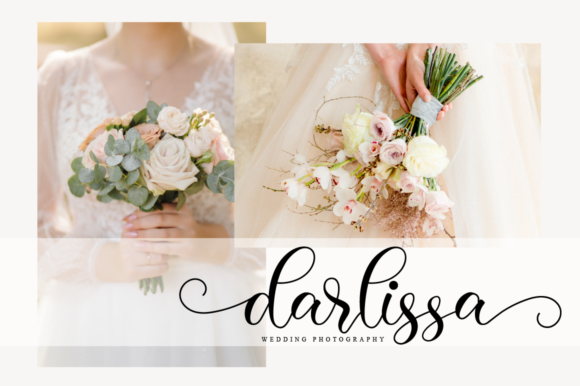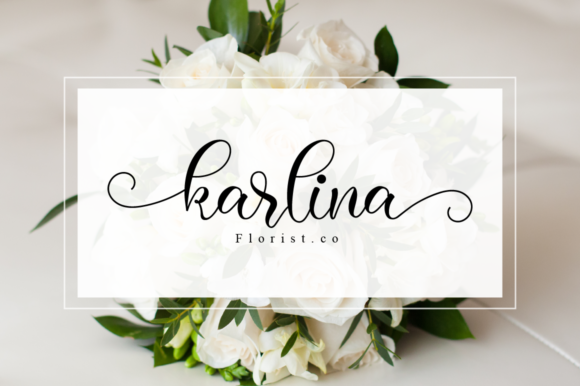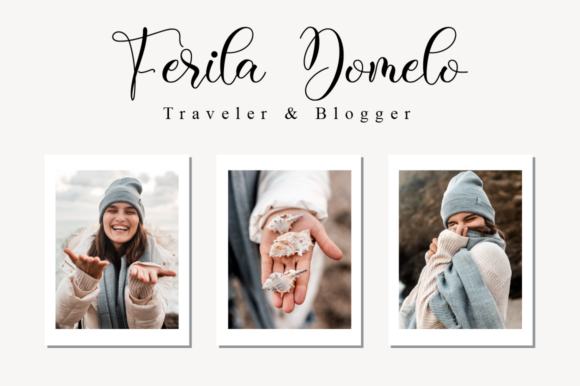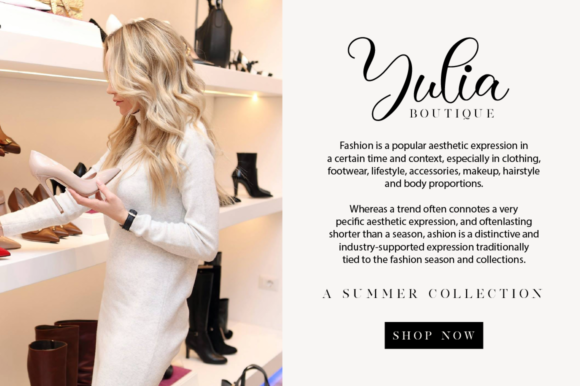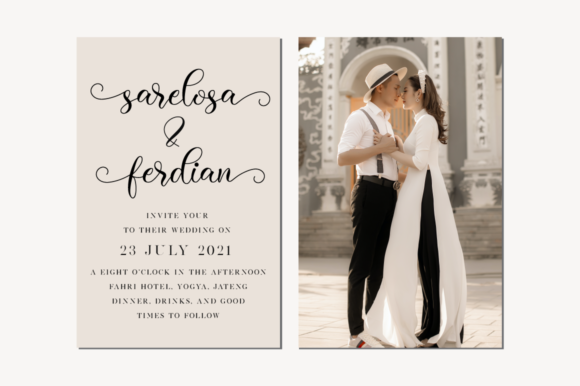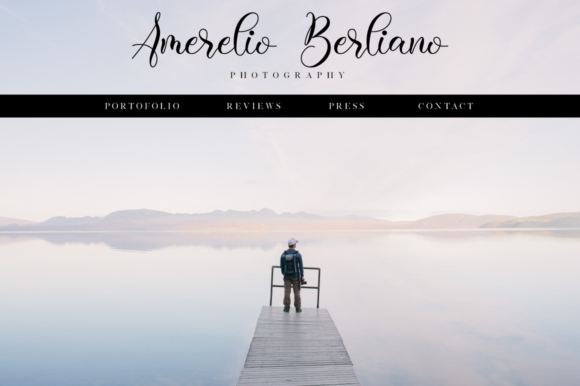
Introduction to Miralose Font
Have you ever stumbled upon the perfect design element that instantly elevates your creative project? For designers, finding that elusive gem can be a game-changer. It’s like stumbling upon a hidden treasure that adds a touch of magic to your work. This is exactly what the Miralose Font promises to deliver – a high-quality, versatile script font that’s perfect for adding a romantic feel to your next project.
With its wide range of applications, from greeting cards to headlines, the Miralose Font is an invaluable design resource that’s sure to impress. Whether you’re working on a personal project or a commercial one, this enchanting font is guaranteed to bring a touch of elegance and sophistication to your work. And the best part? It’s available for a free download, making it an accessible design tool for creatives of all levels.
But what truly sets the Miralose Font apart is its transparent background, allowing you to easily access all the beautiful glyphs and swashes. With PUA encoding, you can unlock the full potential of this design gem and create stunning visuals that are sure to captivate your audience.
Key Features of Miralose Font
- Includes a wide range of characters, including uppercase and lowercase letters, numbers, and punctuation
- Features a unique, modern design with clean lines and minimalist aesthetic
Honest Review: Miralose Font
I recently had the chance to work with the Miralose Font, a popular design resource that has been making waves in the creative community. As a designer, I was excited to see how this high-quality font would perform in my latest project.
One of the things that stood out to me was the font’s versatility. With its sleek and modern design, it’s perfect for a wide range of creative projects, from logos and branding to digital displays and print materials. The transparent background feature also made it easy to customize and integrate into my design.
- ✨ Versatile and easy to customize
However, there were a few limitations that I encountered:
Overall, I was impressed with the Miralose Font and would definitely consider using it in future projects. While it may not be perfect, its strengths outweigh its limitations, making it a valuable addition to any designer’s toolkit.
Tips for Getting the Most Out of Miralose Font
Use the Miralose Font in conjunction with a transparent background to create a sleek and modern design element. Experiment with different font sizes and styles to add visual interest to your design. You can also use the font in combination with other design elements to create a unique and eye-catching design.
The Miralose Font is perfect for creative projects such as graphic design, digital art, and typography. It’s also great for use in presentations, documents, and websites. The font’s high-quality design and transparent background make it an ideal choice for designers looking to add a touch of sophistication to their work.